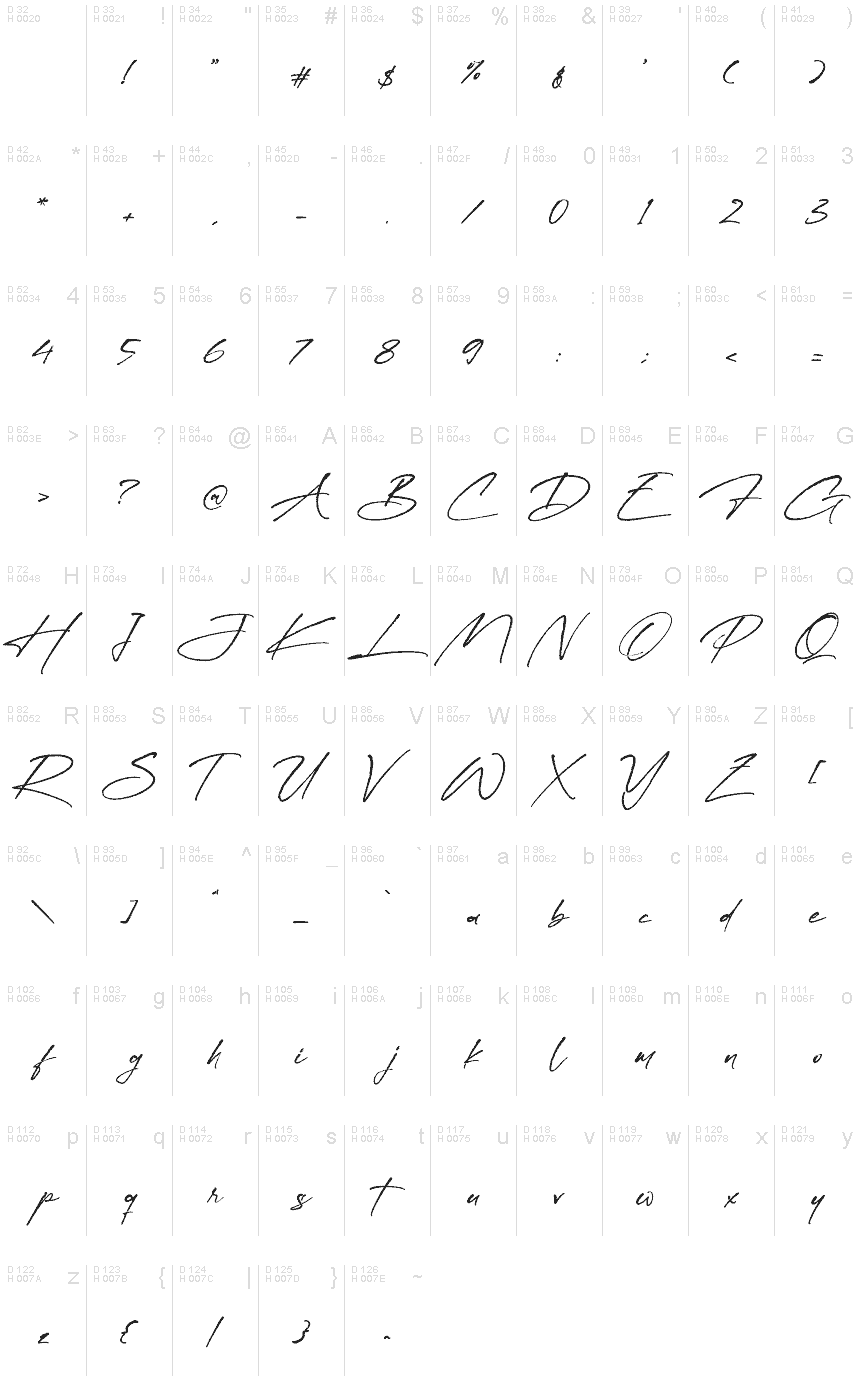
Grenttimes
Grenttimes font by Letterena Studios is a handwritten, signature-style font that exudes elegance and expressiveness. Its light weight and flowing strokes give it a contemporary and artistic appearance, perfect for personalizing your designs. The overall style captures a sense of sophistication that speaks effortlessly to the viewer.
This free handwritten font is suitable for numerous uses including logos, branding, invitations, product packaging, quotes, blogs, and business cards. It can also be used in stationery design or as overlays for images on social media posts. Whether you’re looking to add a unique touch to your website or enhance your portfolio presentation material, Grenttimes will set your work apart.